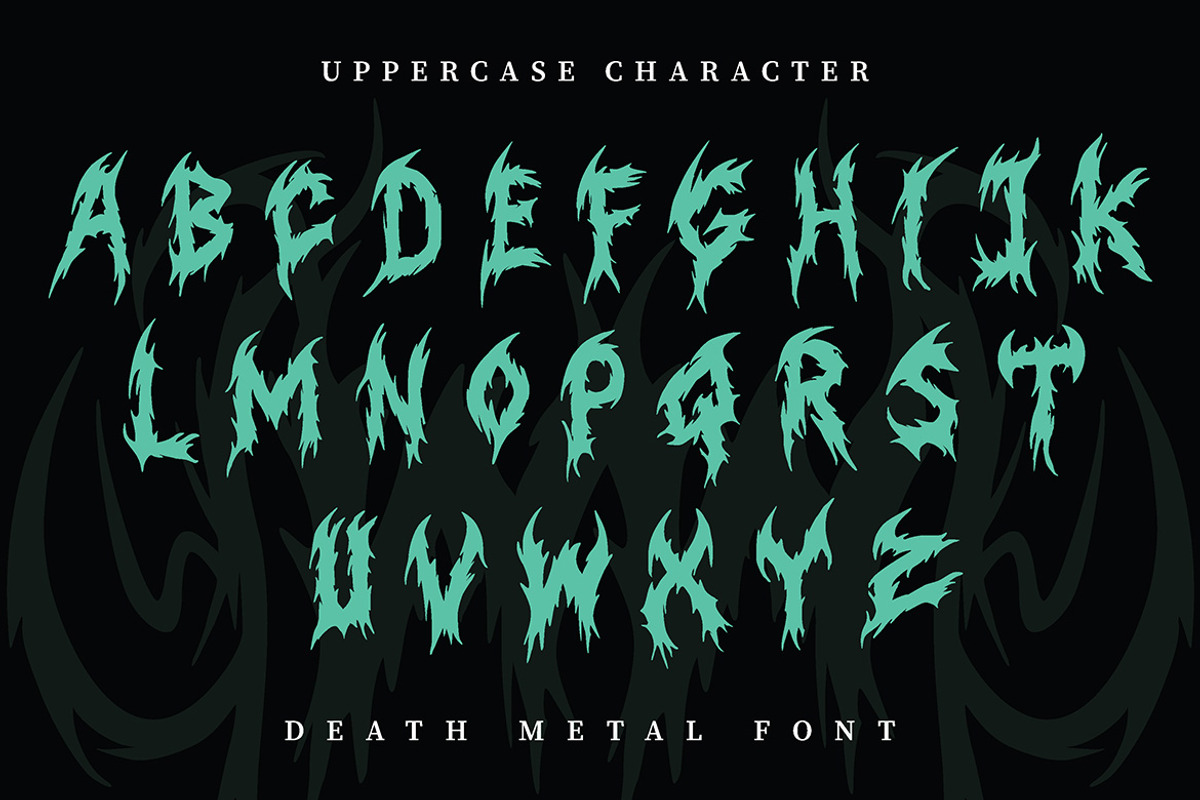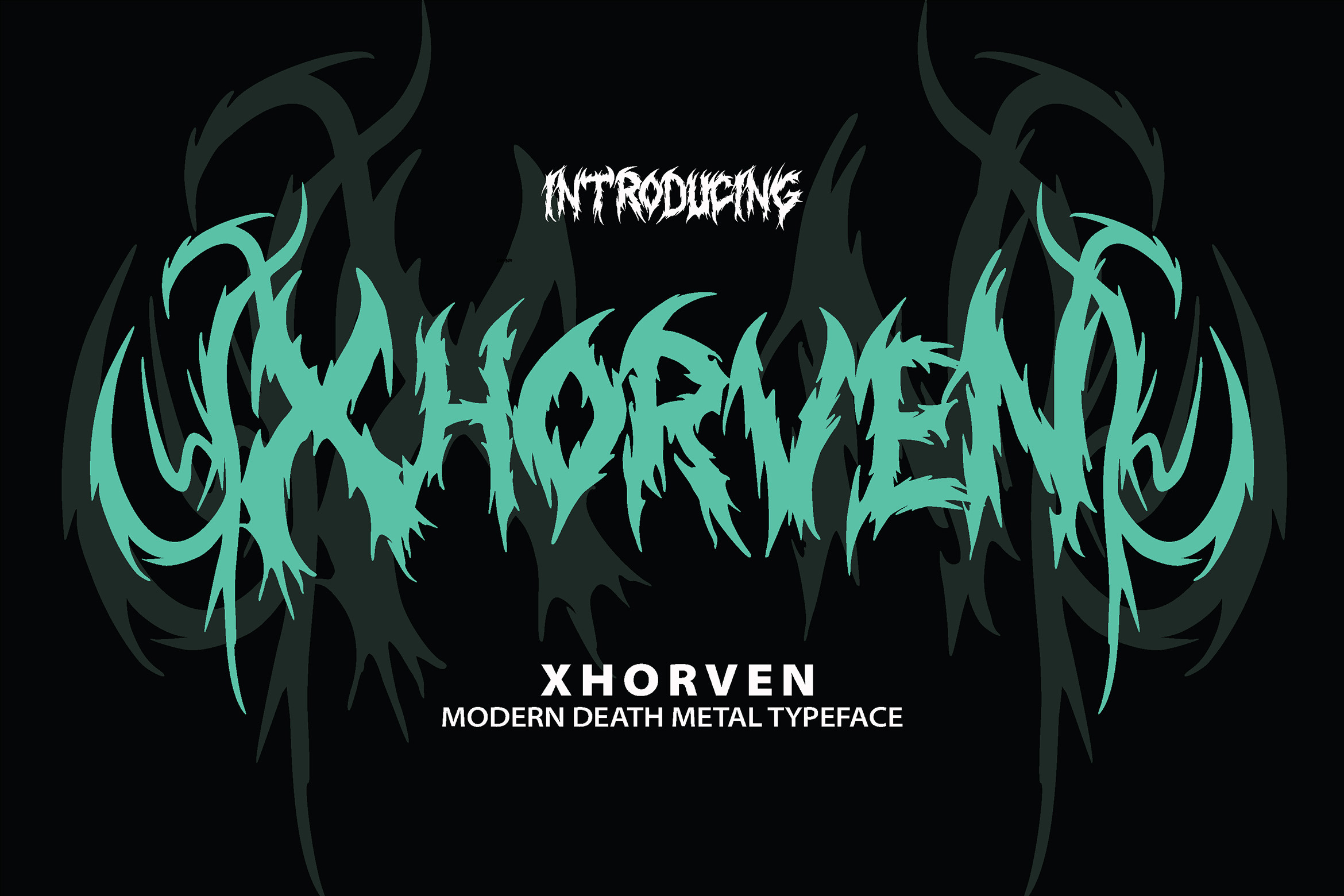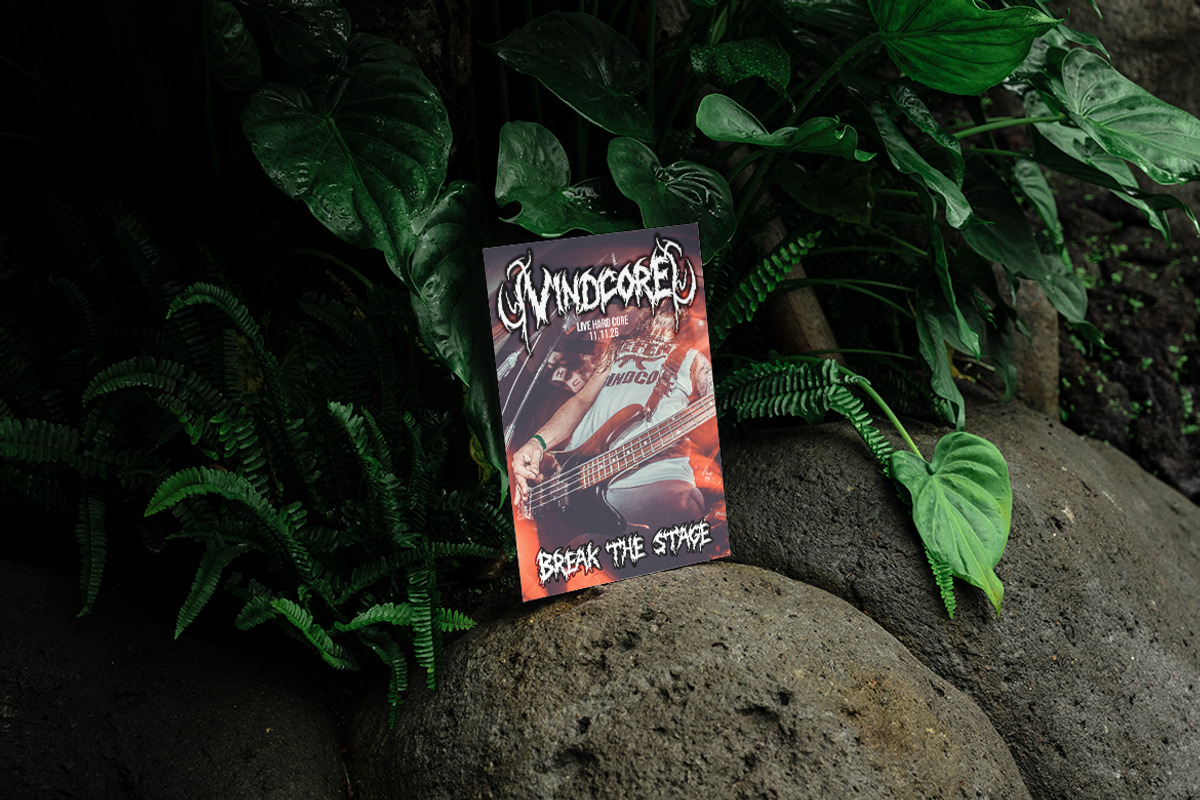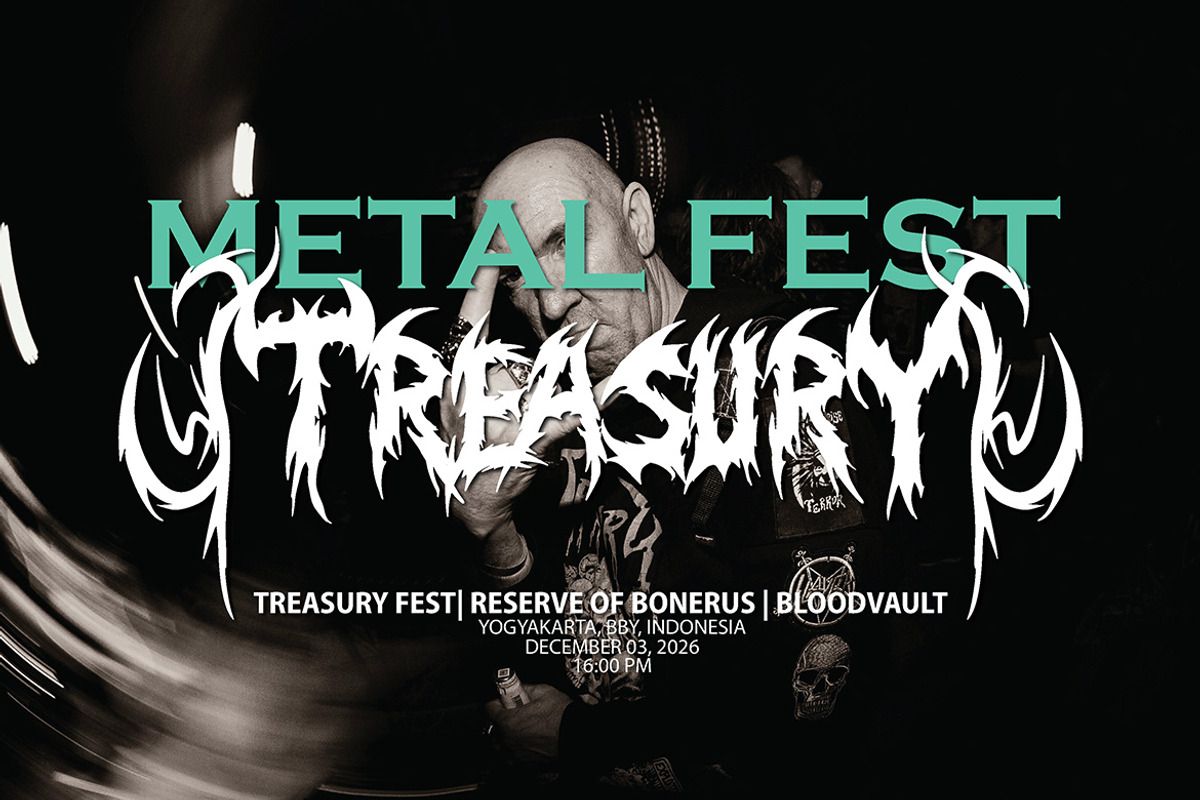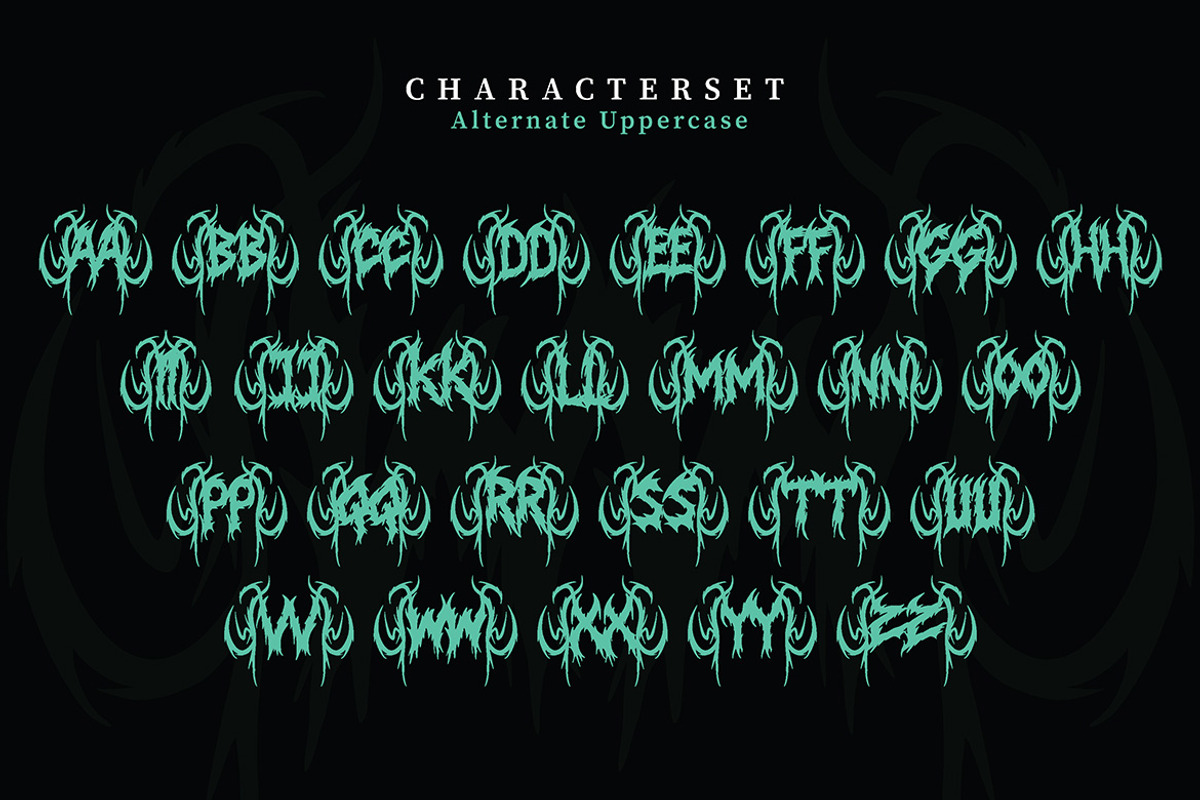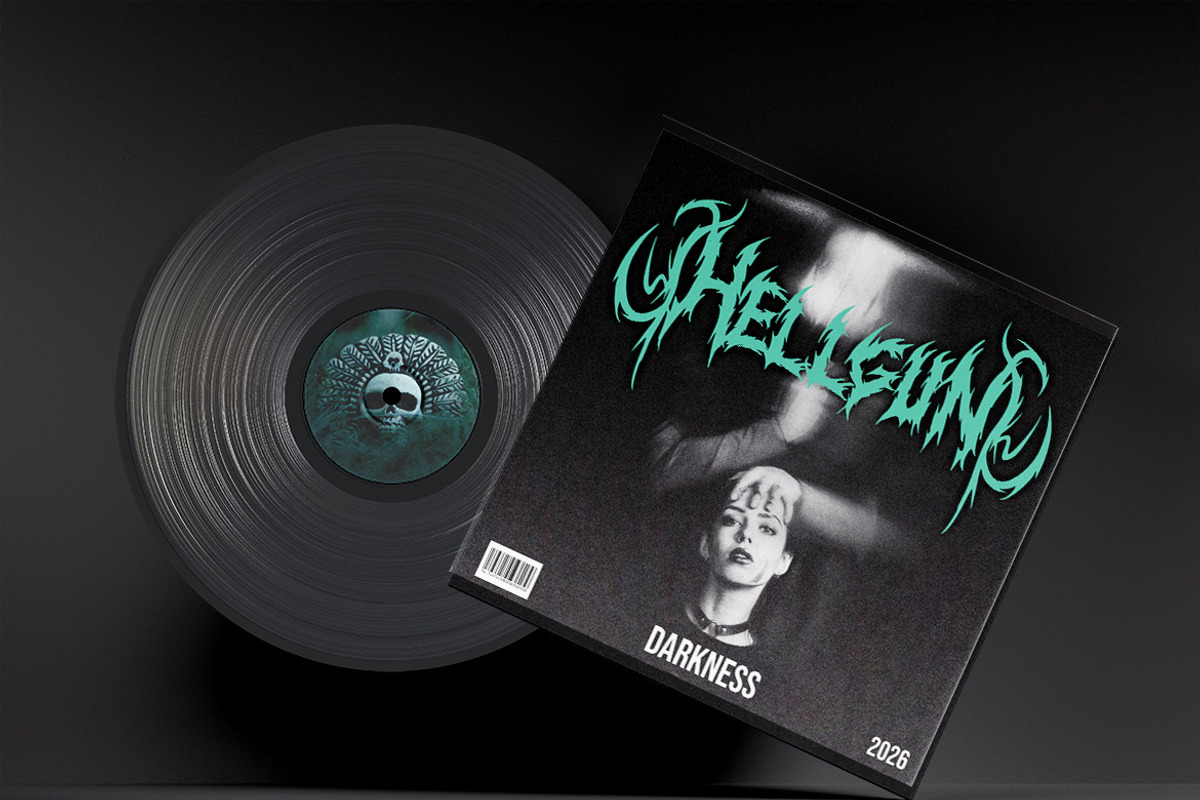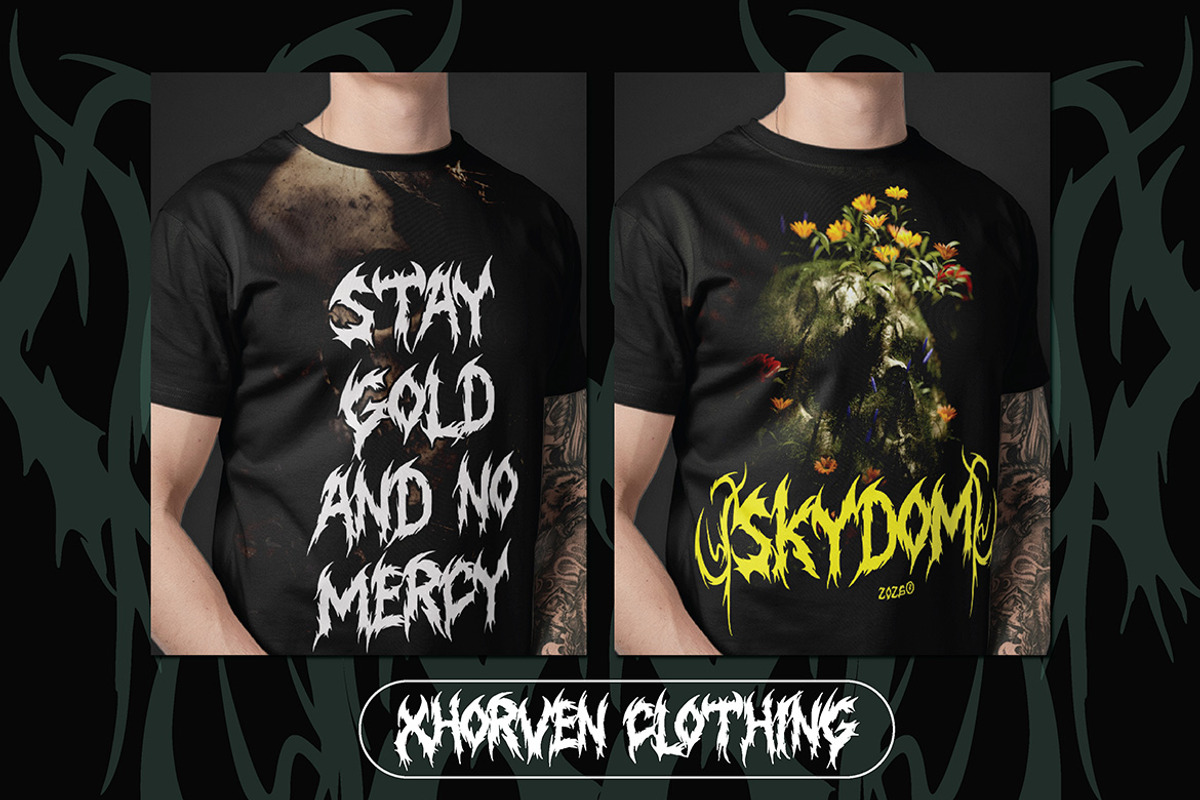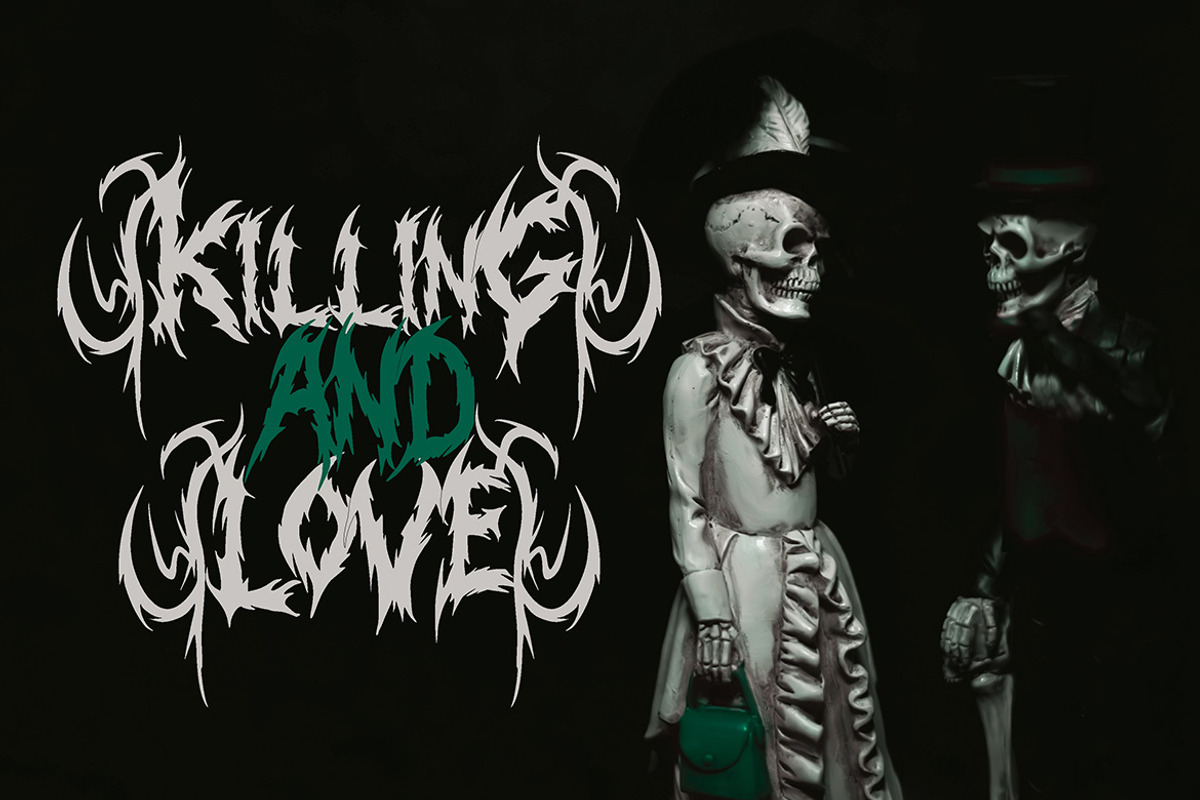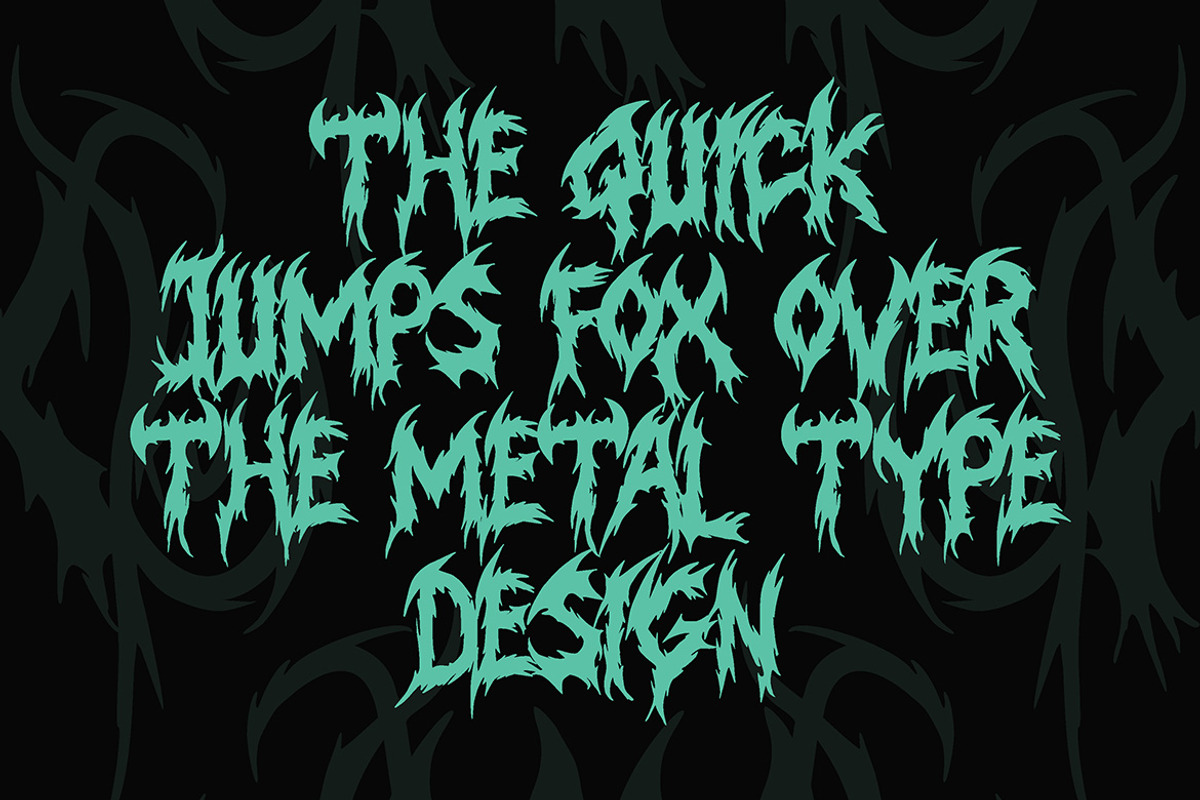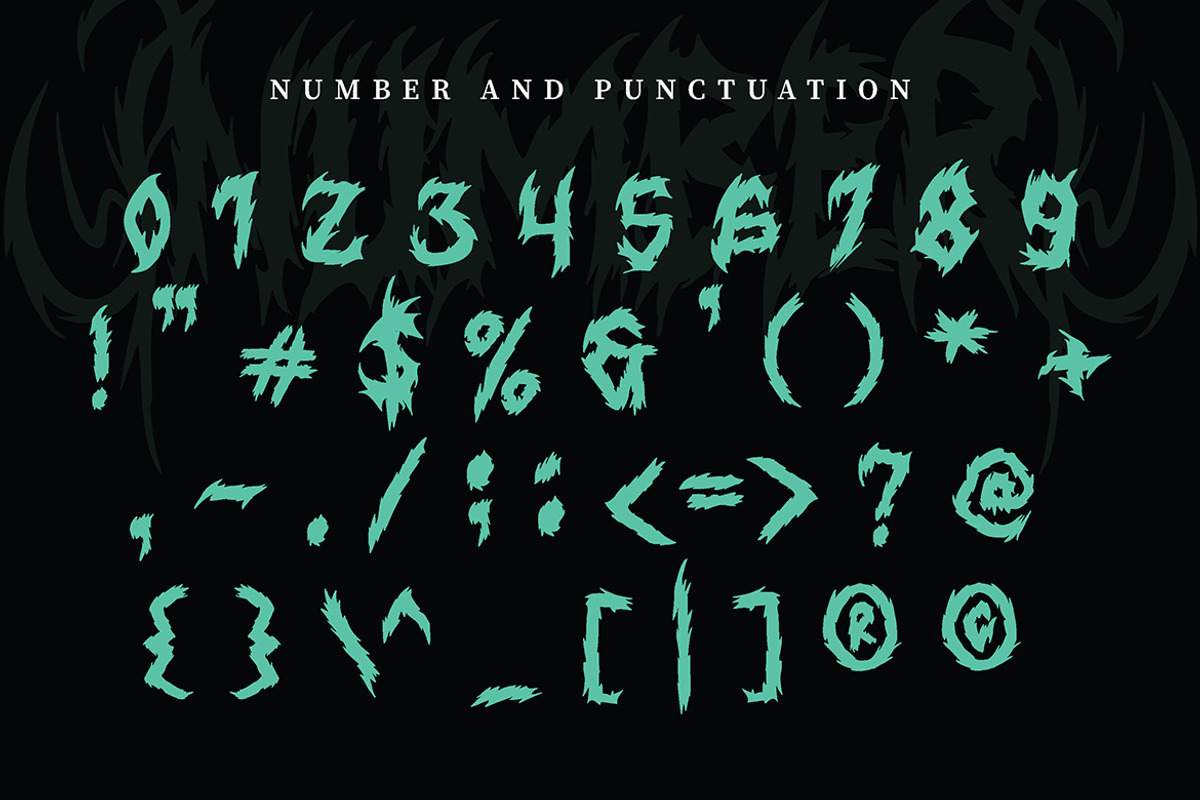
Xhorven - Death Metal Typeface
Xhorven is a modern death metal-style typeface characterized by an extreme, aggressive, and high-energy aesthetic. Its letterforms draw inspiration from extreme metal, death metal, black metal, and underground music, featuring sharp structures, organic distortion, and terminals that resemble claws or horns.
The design prioritizes strong visual impact, utilizing interconnected letterforms and a wild composition to evoke a brutal, dark, and mysterious atmosphere. The complex silhouettes ensure XHORVEN stands out prominently when displayed at large sizes.
Suitable for:
Death Metal & Extreme Metal band logos Album & single artwork Posters and gig/festival artwork Album covers Horror, dark fantasy, and occult-themed branding Dark/Gothic-themed games or artwork